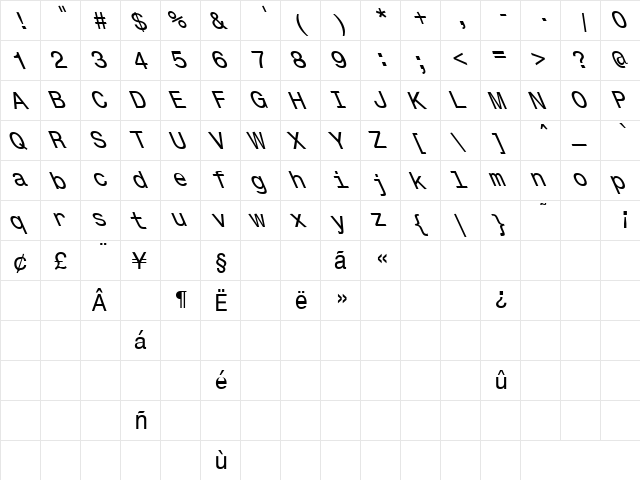
Gallows Pole 2 Regular Font Preview
Gallows Pole 2 Regular
Design Context for Gallows Pole 2 Typeface
Gallows Pole 2 offers clean, dependable letterforms without strong stylistic allegiance, making it a practical choice for designers who need flexibility.